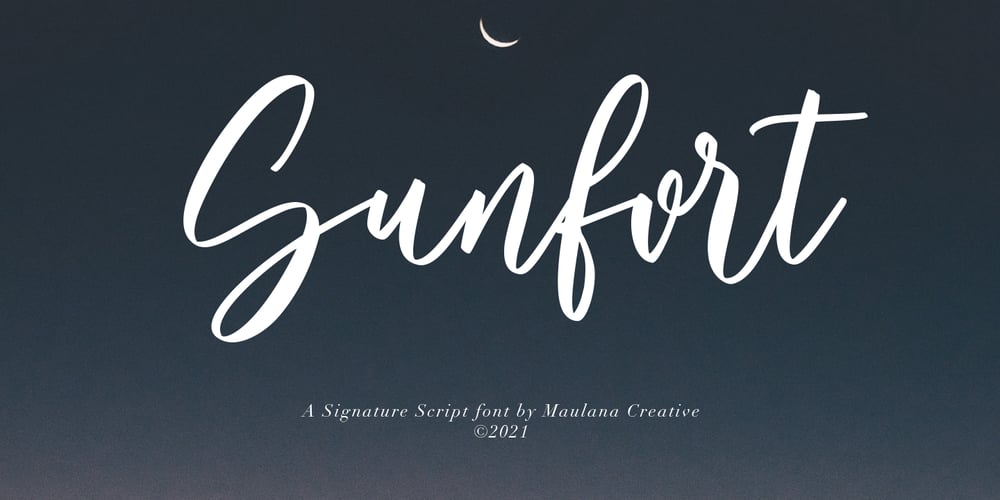
Sunfort
Sunfort font
Sunfort Font Family was designed by Gilang Maulana and published by Maulana Creative. Sunfort contains 1 styles and family package options. Give your designs an authentic handcrafted feel. Sunfort Signature Script Font is perfectly suited to stationery, logos and much more.Many Thanks!MaulanaCreative